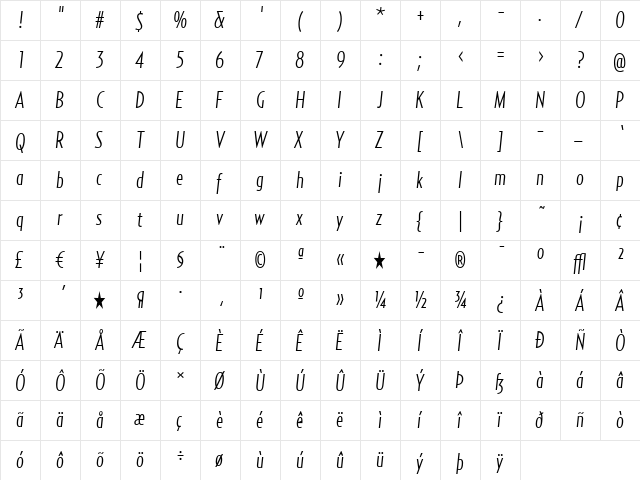
RelayComp-LightItalic Regular Font Preview
| Designer | Cyrus Highsmith |
Design Context for RelayComp-LightItalic Typeface
RelayComp-LightItalic takes a measured approach to typography — its balanced proportions and neutral character make it a reliable workhorse for both digital and print work. The dynamic lean of this cut emphasises speed and emphasis in any layout. The delicate stroke weight brings airiness and refinement to layouts.
Pro Tip: Use RelayComp-LightItalic for emphasis, pull quotes, and subheadings where its slanted energy can add rhythm to the layout.